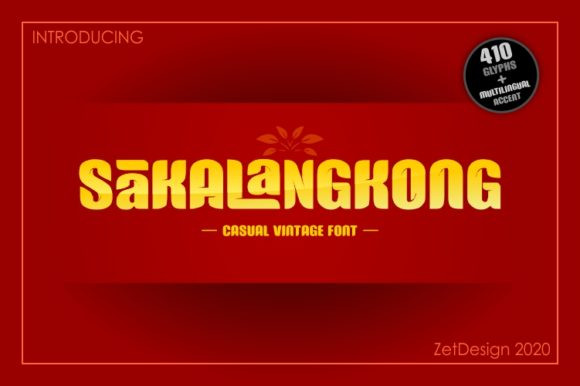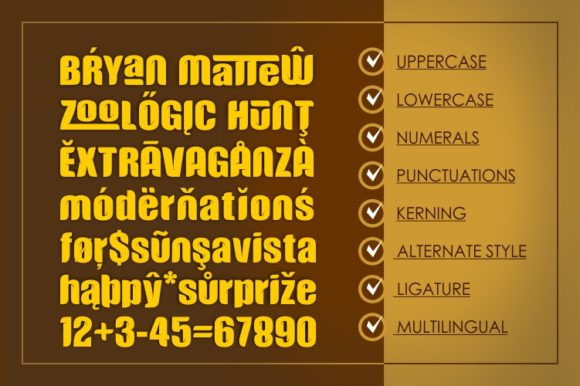
Sakalangkong Font
Sakalangkong is a bold decorative font, carefully handcrafted to become a true favorite. Whether it’s for web, print, moving images or anything else – Sakalangkong will look spectacular.